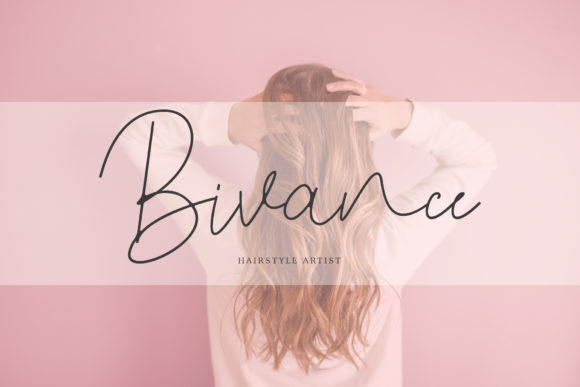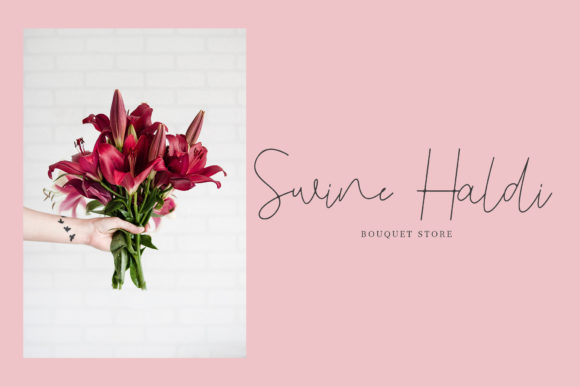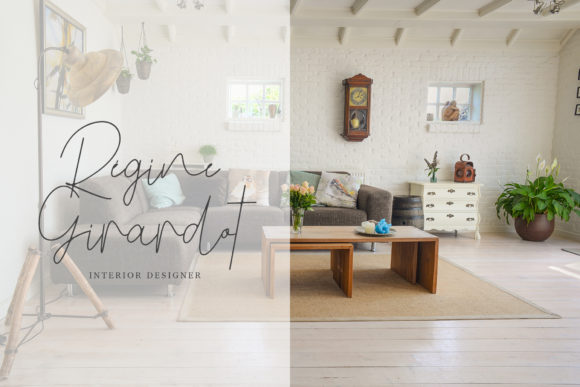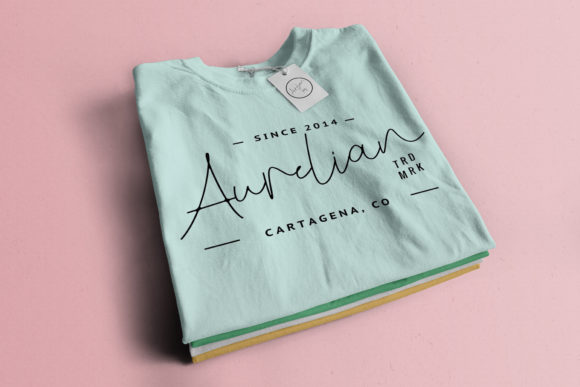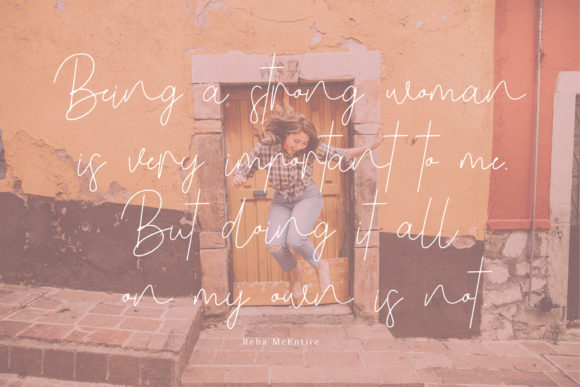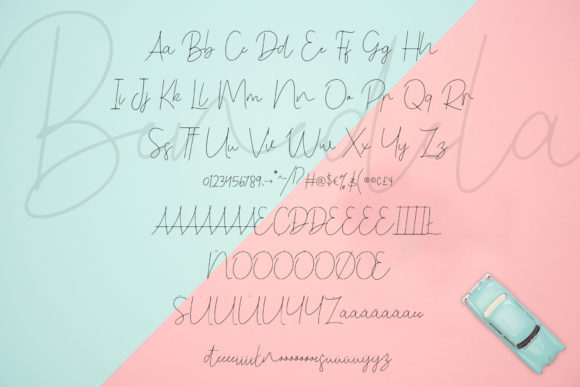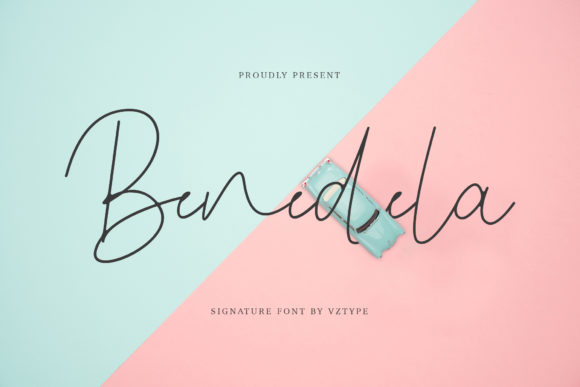
Benedela Font: Elevate Your Designs with a Friendly and Gorgeous Script
In the world of typography, fonts play a crucial role in bringing designs to life. Among the numerous fonts available, Benedela Font stands out for its unique blend of elegance and friendliness. This stunning script font is perfect for designers and crafters looking to add a personal touch to their projects. In this article, we’ll explore the features and benefits of Benedela Font, and how it can help you turn any design idea into a true standout.
The Characteristics of Benedela Font
Benedela Font is a beautifully crafted script font that exudes warmth and approachability. Its friendly feel makes it an excellent choice for designs that require a personal and inviting touch. The font’s gorgeous appearance is characterized by:
- Flowing Script: Benedela Font features a smooth, flowing script that adds a touch of elegance to any design.
- Unique Letterforms: The font’s letterforms are carefully designed to create a distinctive and recognizable style.
- High Legibility: Despite its ornate appearance, Benedela Font remains highly legible, making it suitable for a wide range of applications.
Benefits of Using Benedela Font
Benedela Font offers numerous benefits for designers and crafters, including:
- Versatility: This font can be used in various design projects, from branding and advertising to packaging and digital media.
- Emotional Connection: Benedela Font’s friendly feel helps create an emotional connection with your audience, making your designs more relatable and engaging.
- Customization: The font’s unique style allows for creative experimentation and customization, enabling you to tailor your designs to your specific needs.
Design Ideas with Benedela Font
Benedela Font can be used in a variety of design projects, including:
- Branding and Logo Design: Create a memorable brand identity with Benedela Font’s distinctive script style.
- Wedding and Event Invitations: Add a touch of elegance and sophistication to your wedding or event invitations.
- Digital Media: Use Benedela Font in your social media graphics, blog posts, and website designs to create a friendly and approachable atmosphere.
- Packaging Design: Stand out on store shelves with Benedela Font’s unique and eye-catching style.
Tips for Using Benedela Font
To get the most out of Benedela Font, follow these tips:
- Pair with Complementary Fonts: Combine Benedela Font with complementary fonts to create visual interest and hierarchy.
- Experiment with Colors: Try different color schemes to find the perfect match for your design and brand.
- Pay Attention to Spacing: Adjust the spacing and kerning to ensure optimal legibility and aesthetics.
| Font Name | Benedela Font |
| Author | Vz_Type |
Benedela Font is a stunning script font that can elevate your designs and help you connect with your audience. Its unique blend of elegance and friendliness makes it an excellent choice for a wide range of design projects. By understanding the characteristics and benefits of Benedela Font, you can unlock its full potential and create truly standout designs.